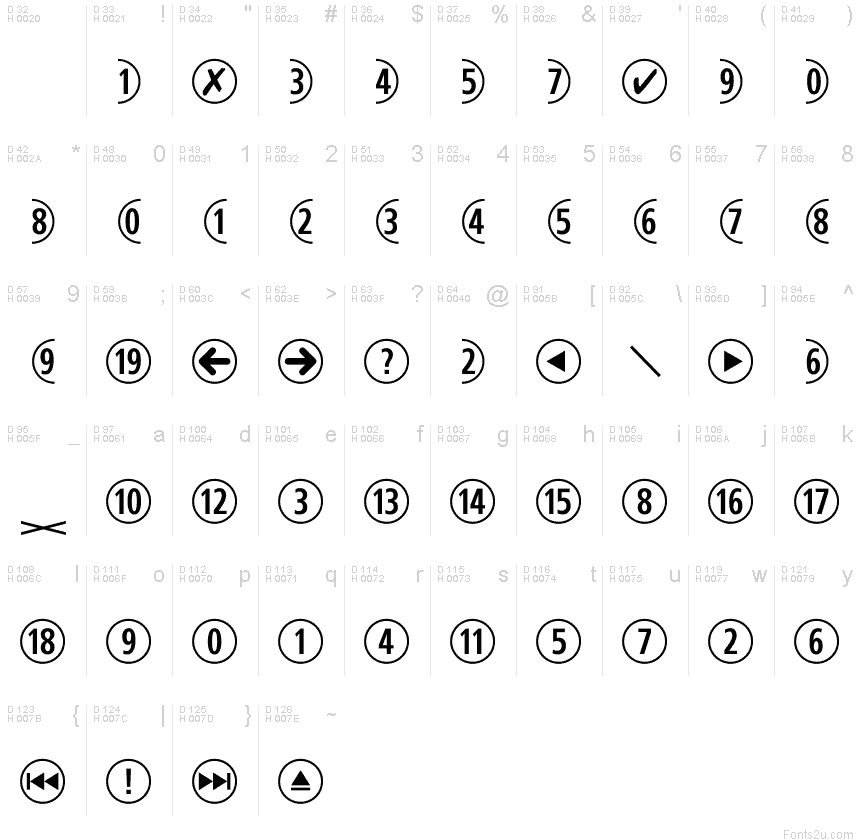
CombiNumerals
CombiNumerals is a typeface for creating circled numbers popular for use in CD/DVD labeling, web graphics, forms, maps, signs, guide books, questionnaires, etc. Here’s how it works:
Single-digit numbers — The numbers 1 through 9 and zero are located on the qwertyuiop row of keys (respectively) on a US keyboard.
Double-digit numbers — The numbers 0 through 99 are created by first typing a number, followed by Shift-number. For example, to create the number 69, press and release the 6 key, then press Shift-9.
NOTE — Because double-digit numbers beginning with 1 can be problematic when it comes to spacing, I’ve provided alternates for the numbers 10 through 19 along the asdfghjkl; row of keys (respectively) on a US keyboard. You can still type them in the manner described above, but you’ll find the alternate versions a bit more attractive.
Additional characters — Several characters besides numerals can be created, e.g., arrows, hands, pointers, smiley faces, and more. Check your character map for exact keyboard locations, or refer to the User Guide.